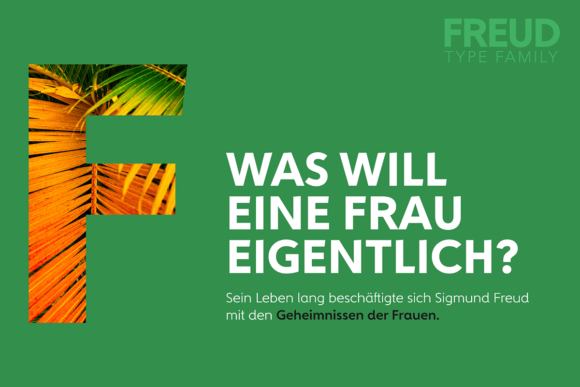
Dive into the realm of captivating typography with Freud Font, a sans serif masterpiece designed to ignite your creative endeavors. This remarkable creation by Juraj Chrastina embodies the essence of boldness and clarity, making it the perfect font for leaving a lasting impression in the digital world.
With its nine distinct weights ranging from hairline to extra bold, Freud Font offers a versatile canvas for expressing your unique style. Each character exudes elegance and legibility, enhanced by the meticulous attention to detail and the incorporation of lovely humanist terminals. The angled cuts in certain strokes add an intriguing touch of personality, making Freud Font stand out from the crowd.
Whether you're crafting eye-catching headlines, designing striking logos, or creating dynamic online content, Freud Font is your ultimate companion. Its versatility extends from screen to print projects, ensuring seamless adaptability to various mediums. Unleash your creativity and let Freud Font elevate your designs to new heights of sophistication.
Embrace the power of Freud Font today and experience the transformative impact of exceptional typography. It's the perfect tool for crafting bold statements, conveying powerful messages, and leaving an indelible mark on your audience.